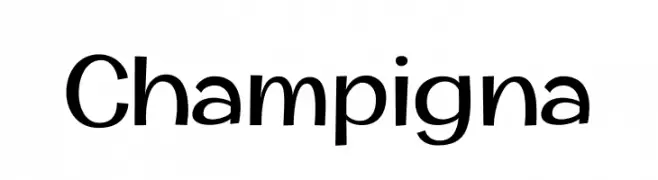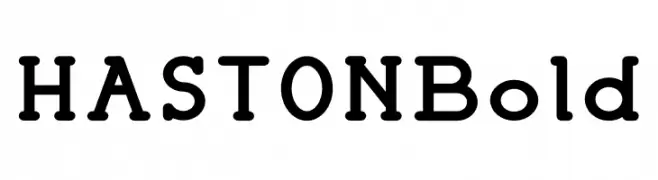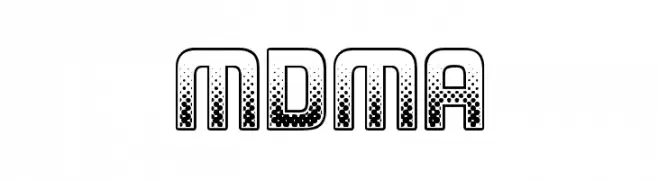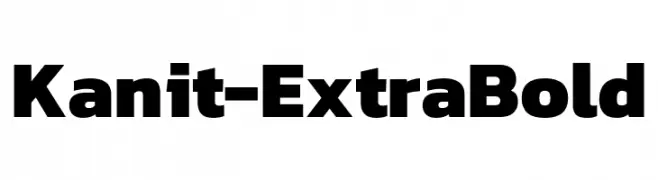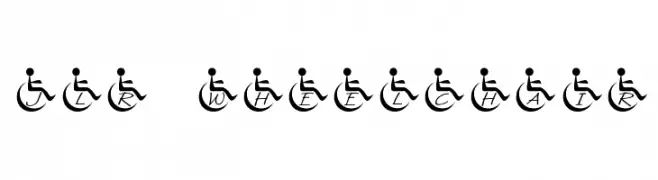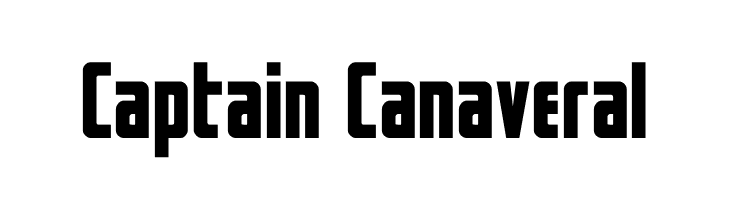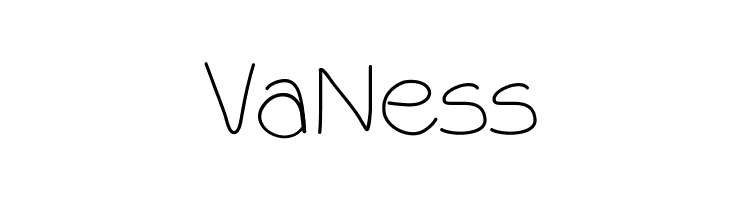
A playful, handwritten-style font with bold, rounded characters.
A bold, rounded font with a playful and approachable style.
A modern, elegant handwritten font with fluid, cursive letterforms.
A bold, decorative font with a dotted pattern and outlined characters.
A bold, modern sans-serif font with a strong and impactful design.
A modern, geometric sans-serif font with clean lines and rounded edges.
A dynamic handwritten font with fluid strokes and playful elegance.
A bold, dynamic script font with fluid, connected letterforms.
A modern, inclusive font combining letters with the wheelchair symbol.
A playful, hand-drawn outline font with a whimsical and casual style.